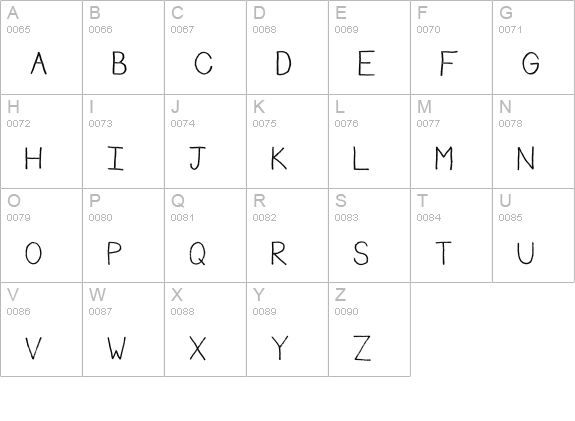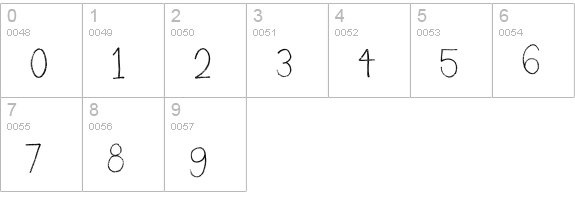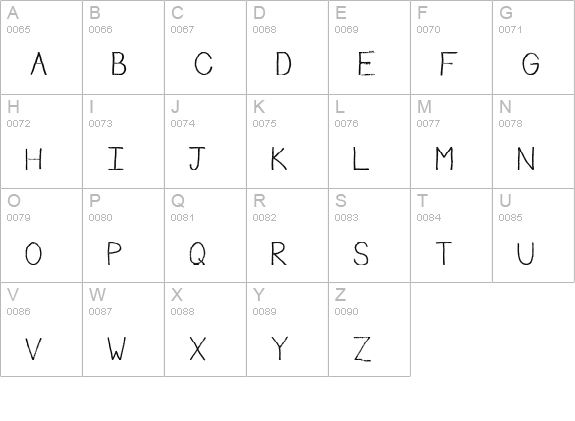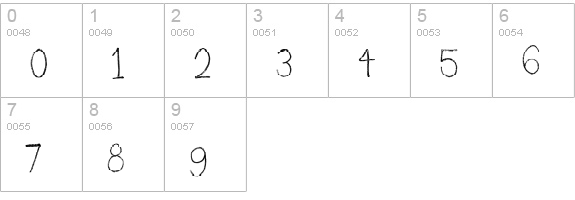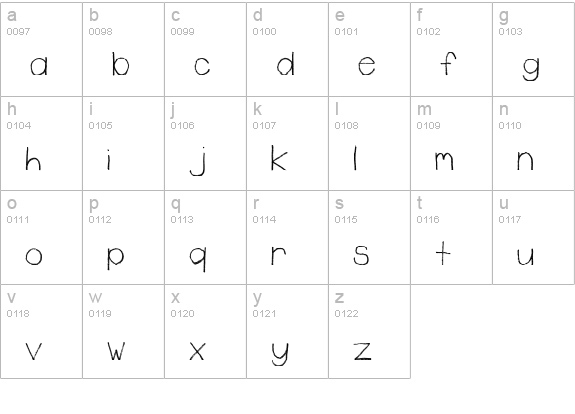
Rudiment Font Details
Rudiment font is a stunning display typeface that combines elegance with a touch of boldness. Its unique and intricate letterforms are sure to captivate any audience and add a touch of sophistication to any design project. With its clean lines and balanced proportions, Rudiment font is perfect for a wide range of applications, including branding, packaging, headlines, and more. Its versatility allows it to be used in both digital and print mediums, making it a valuable asset for any designer or creative professional. Not only does Rudiment font offer exceptional aesthetics, but it also boasts functionality. Each character is meticulously crafted to ensure legibility and readability, even at smaller sizes. This attention to detail makes it a reliable choice for both body text and larger headlines. What sets Rudiment font apart is its availability as a free download. That's right, this exceptional typeface can be freely obtained at FontsMarket.com. This accessibility allows designers of all backgrounds and budgets to incorporate Rudiment font into their projects without any obstacles. So why wait? Download Rudiment font now and elevate your designs to new heights. Its timeless elegance and seamless versatility are sure to make a lasting impression on your audience. Don't miss out on the opportunity to enhance your work with this remarkable typeface.